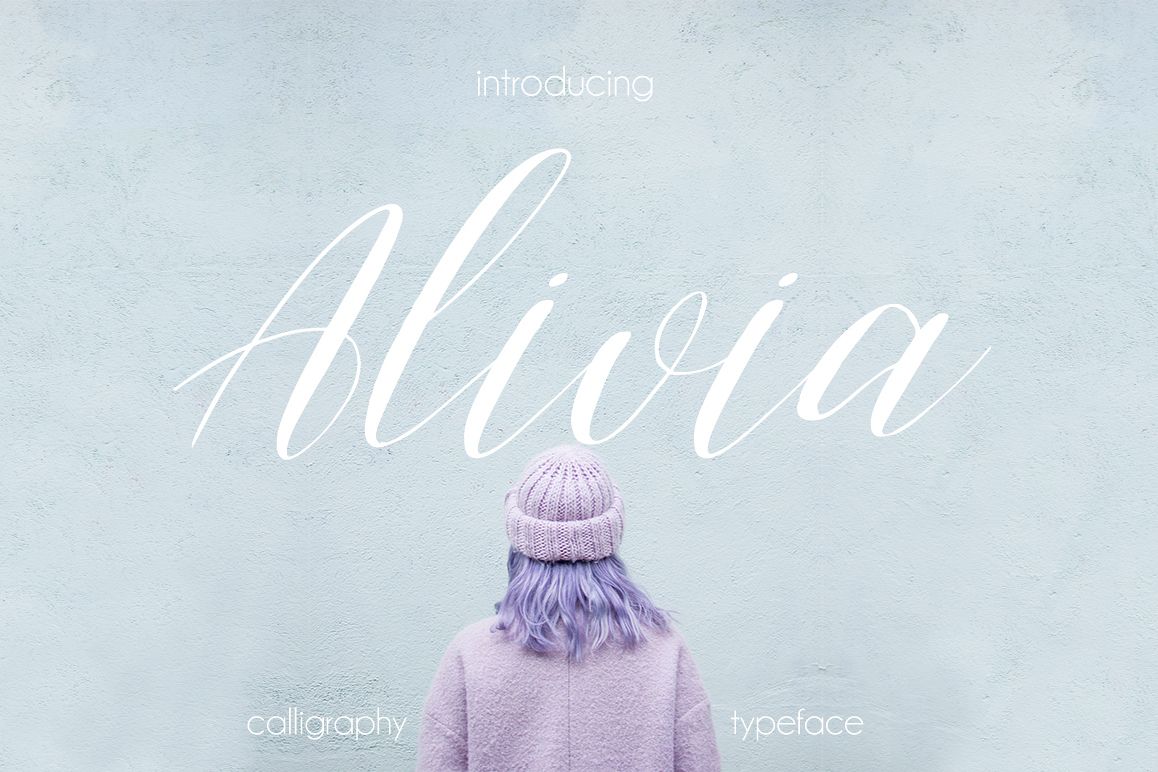
Alivia Script
It's hand lettered and modern script font. This font are perfect for your blog or postcard for wedding. Also with their help, you can create a logo or beautiful frame for your home. Or just use for your small business, book covers, stationery, marketing, magazines.
Alivia Script .